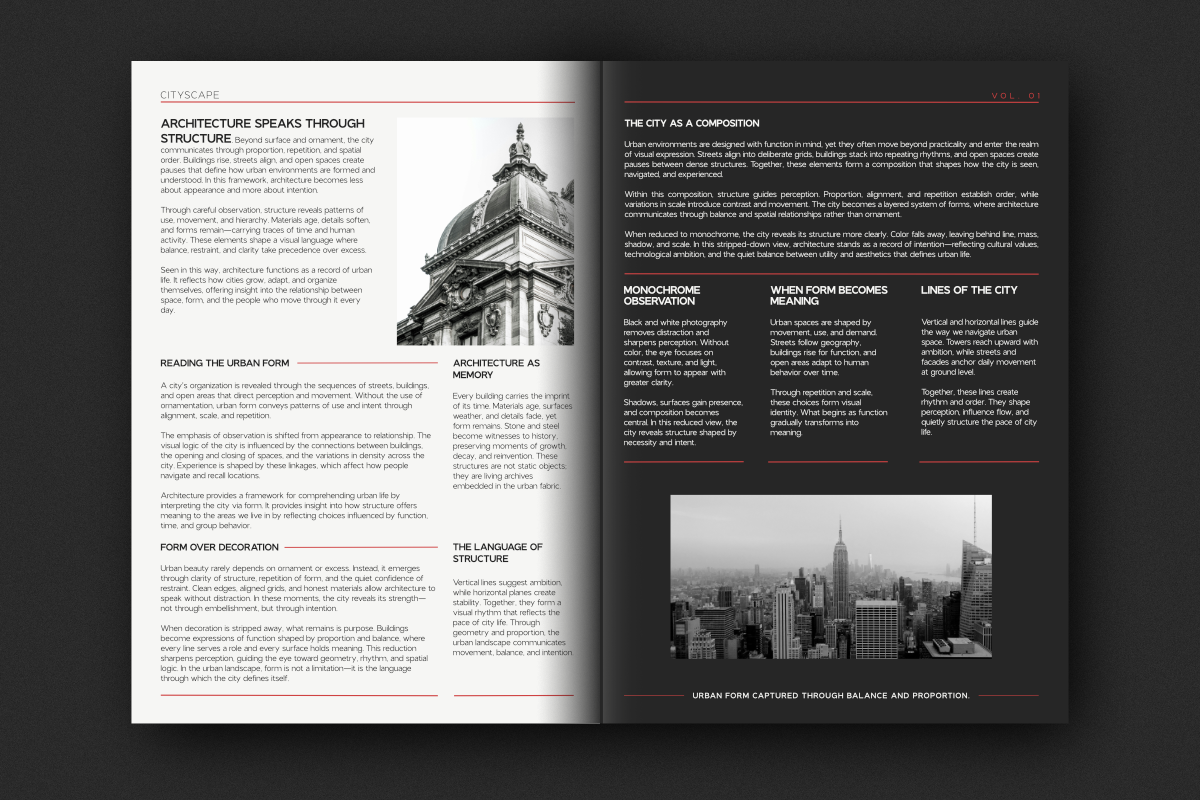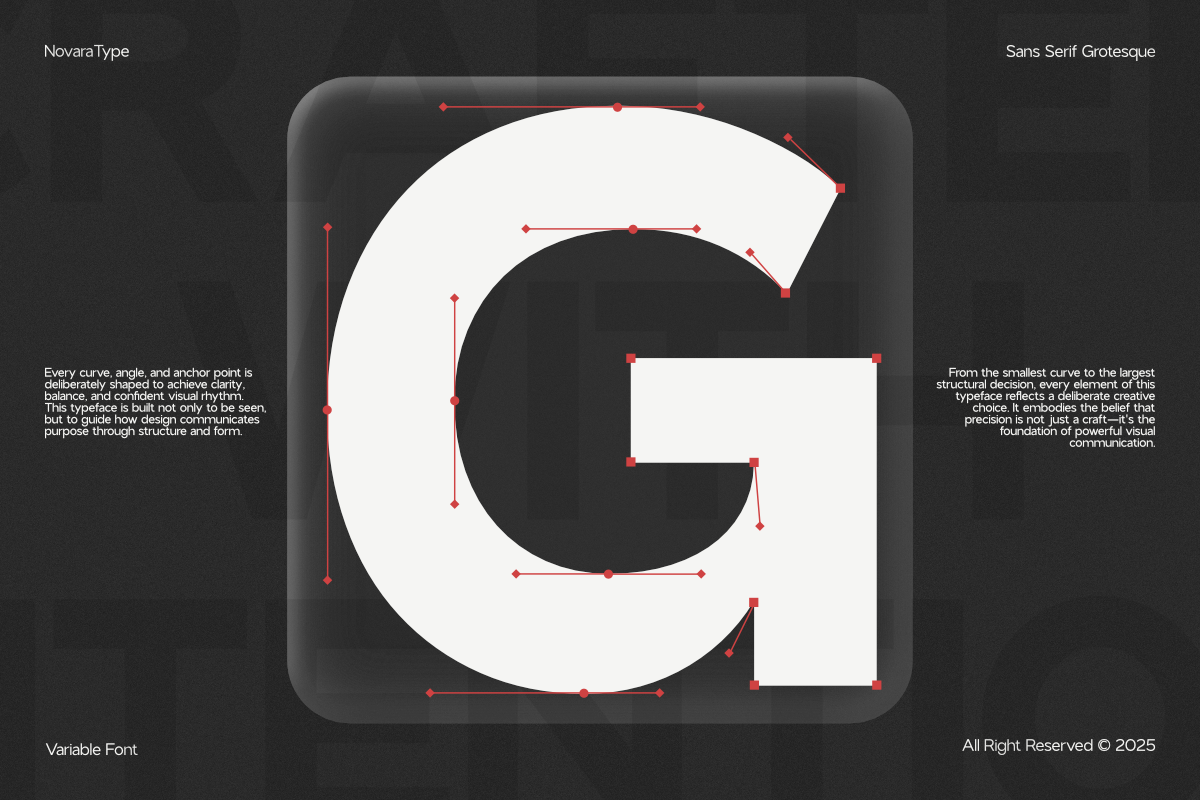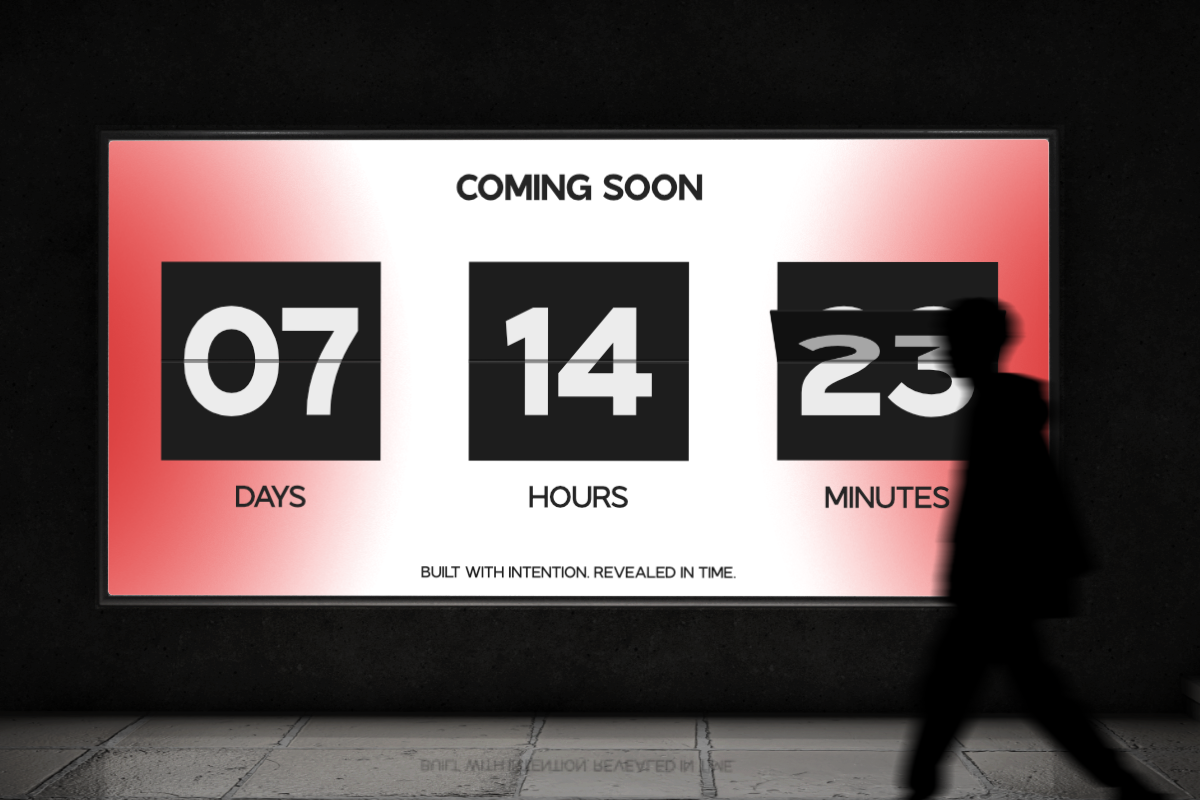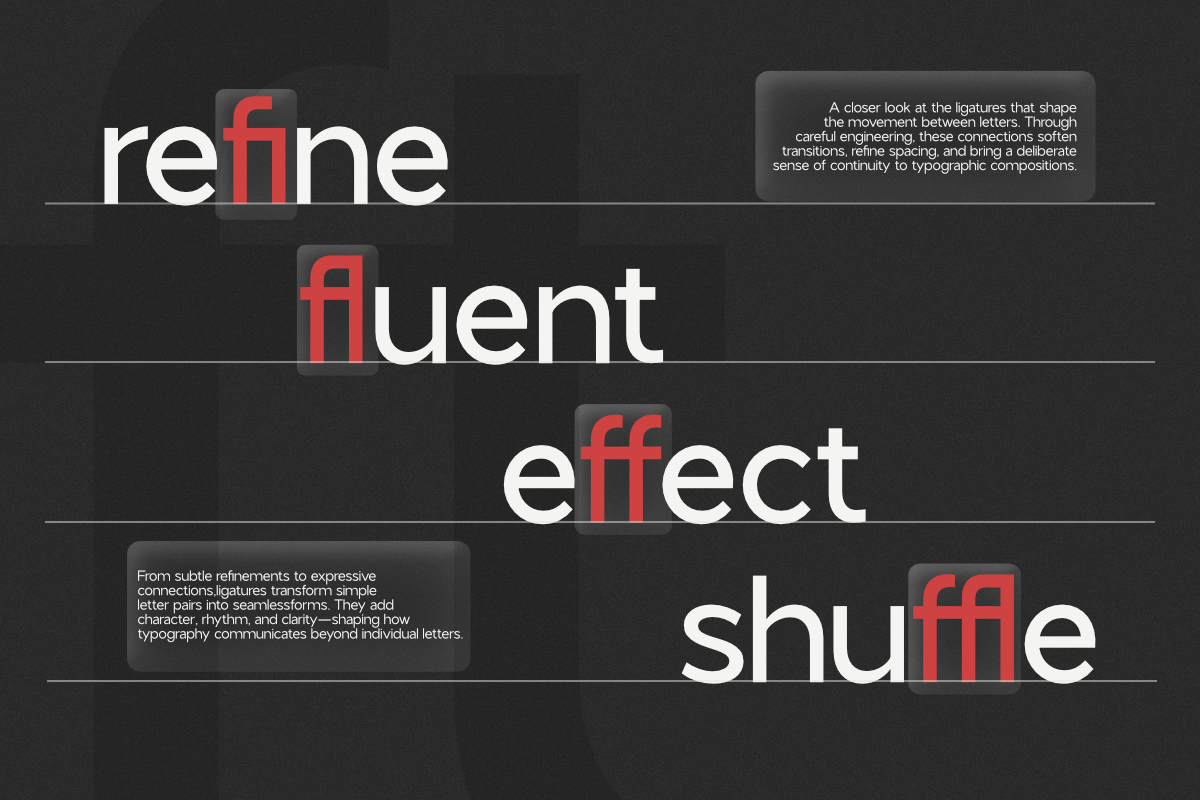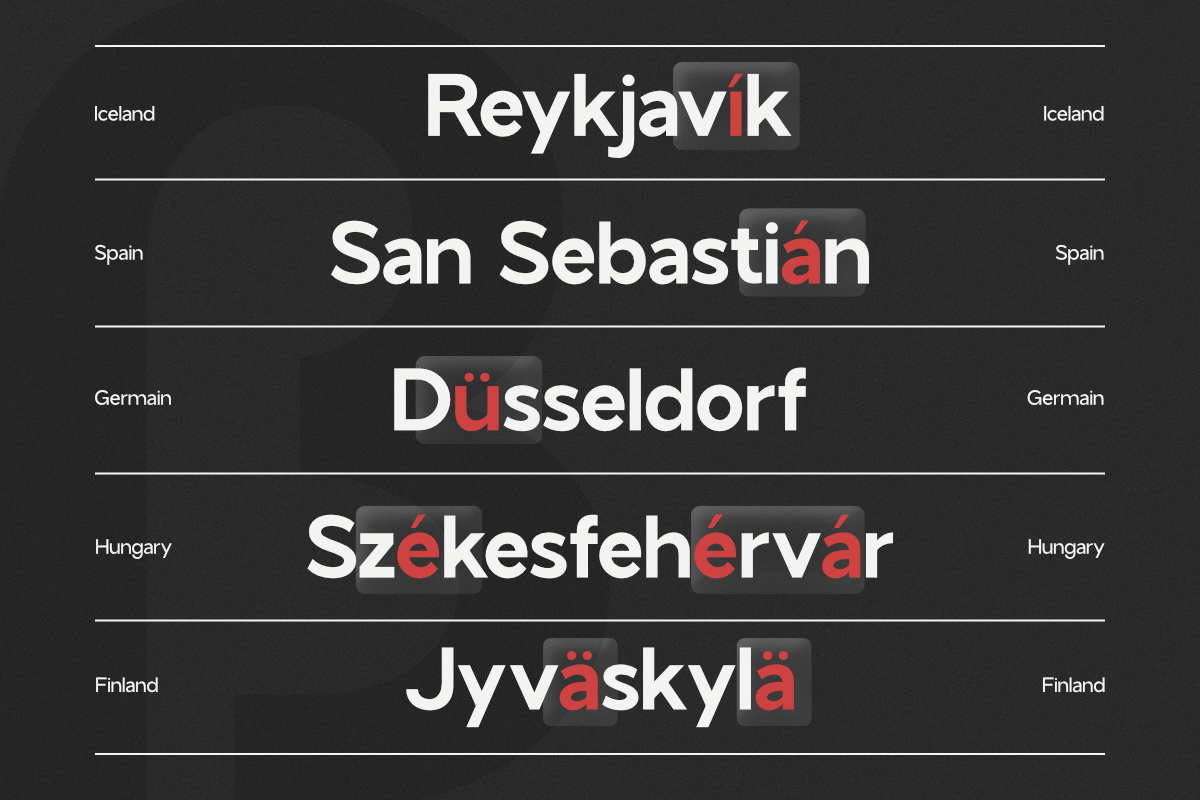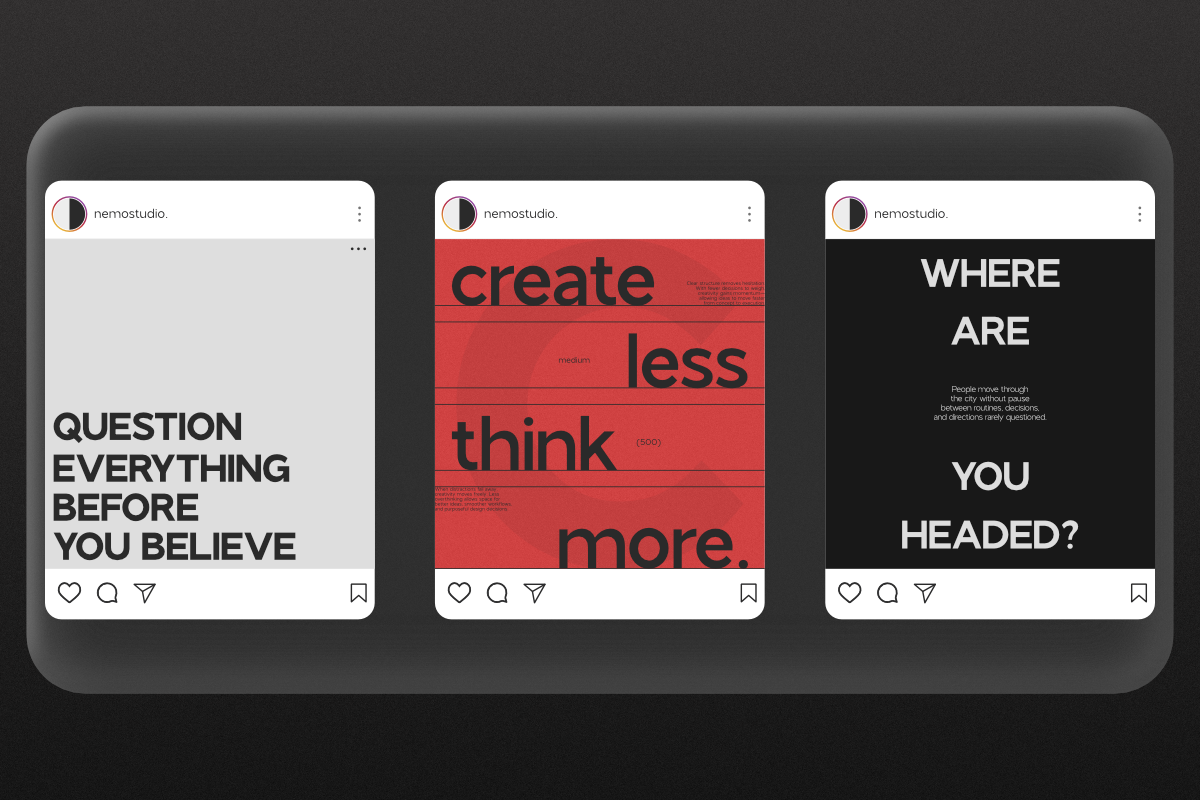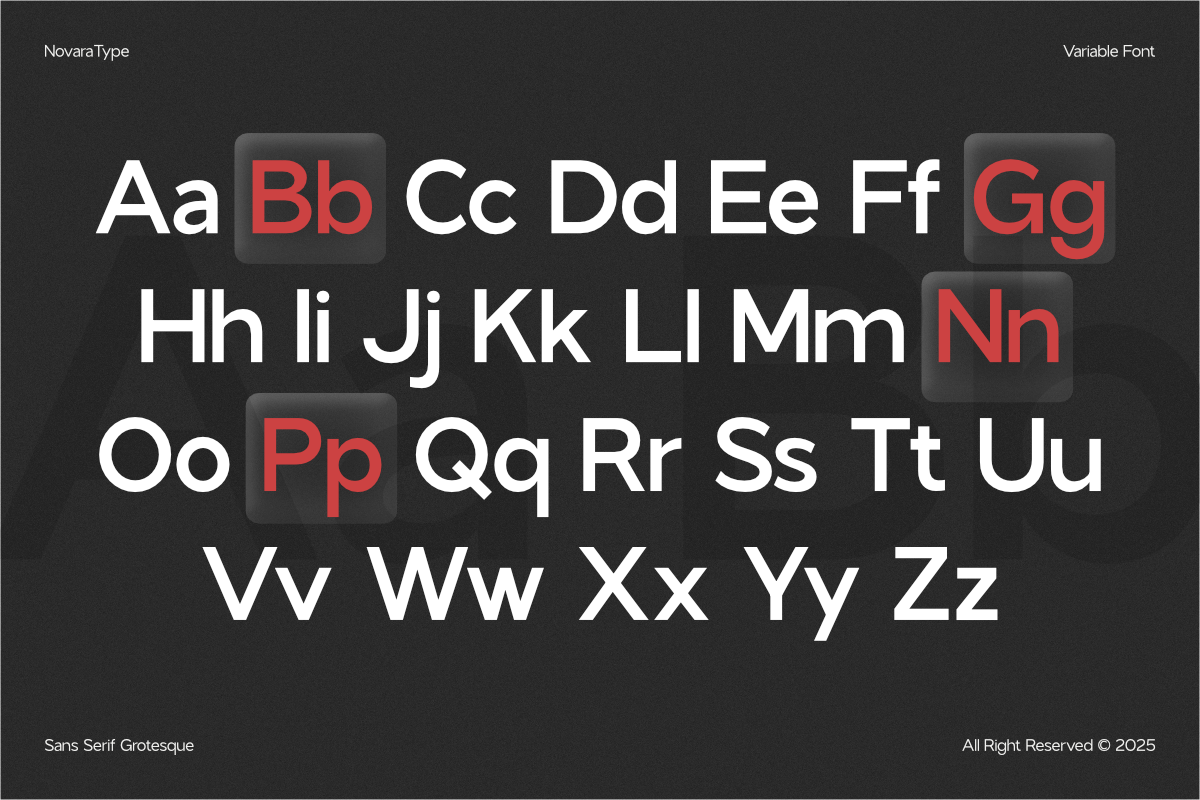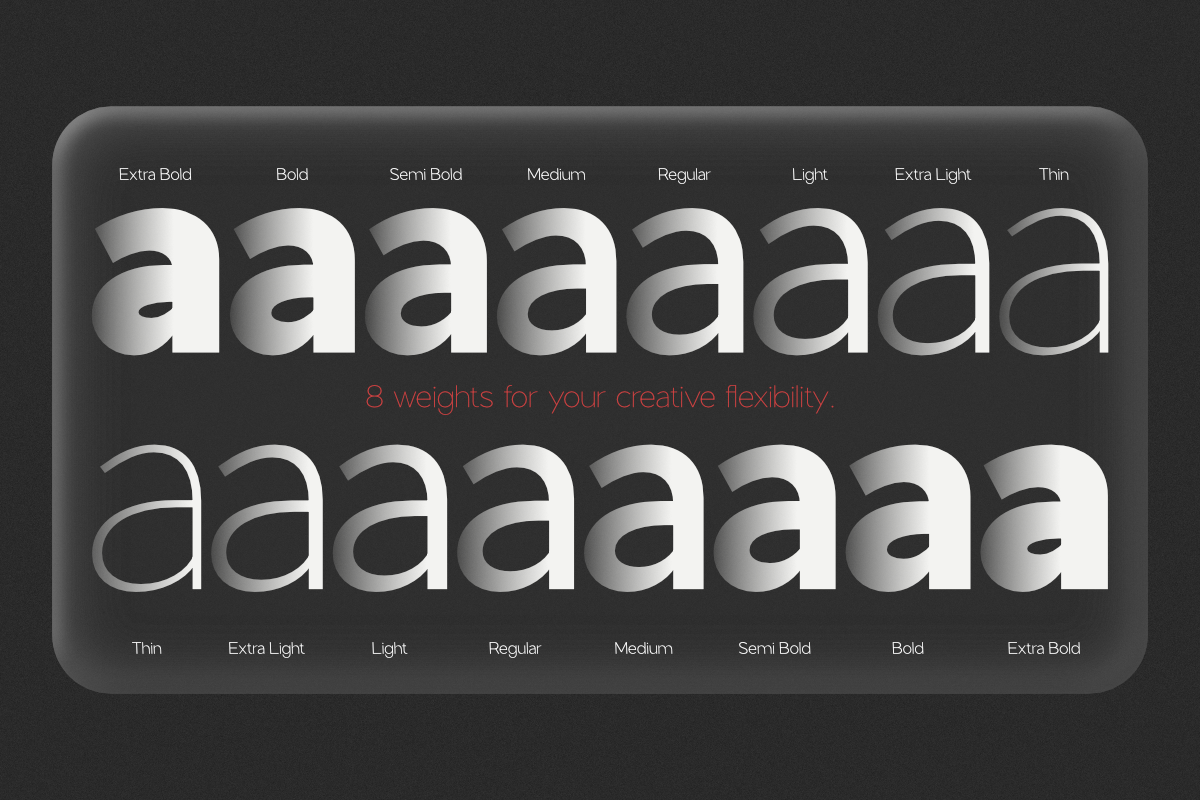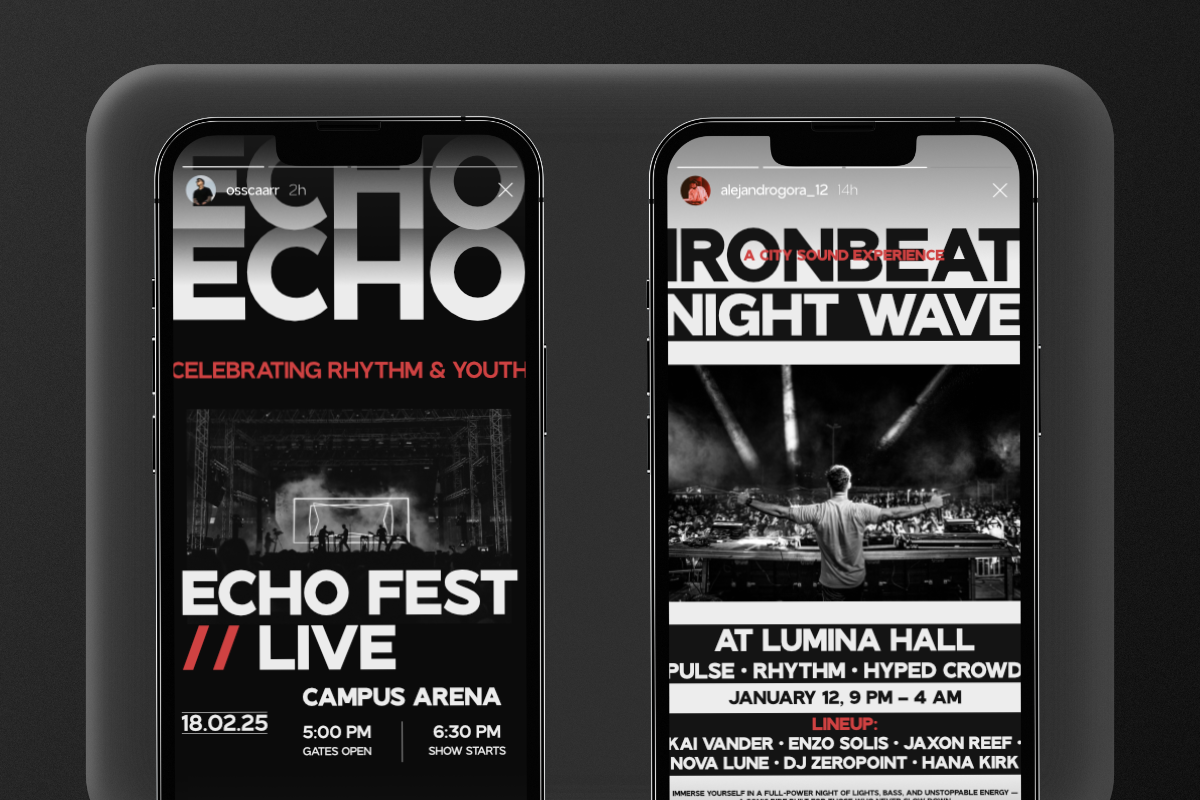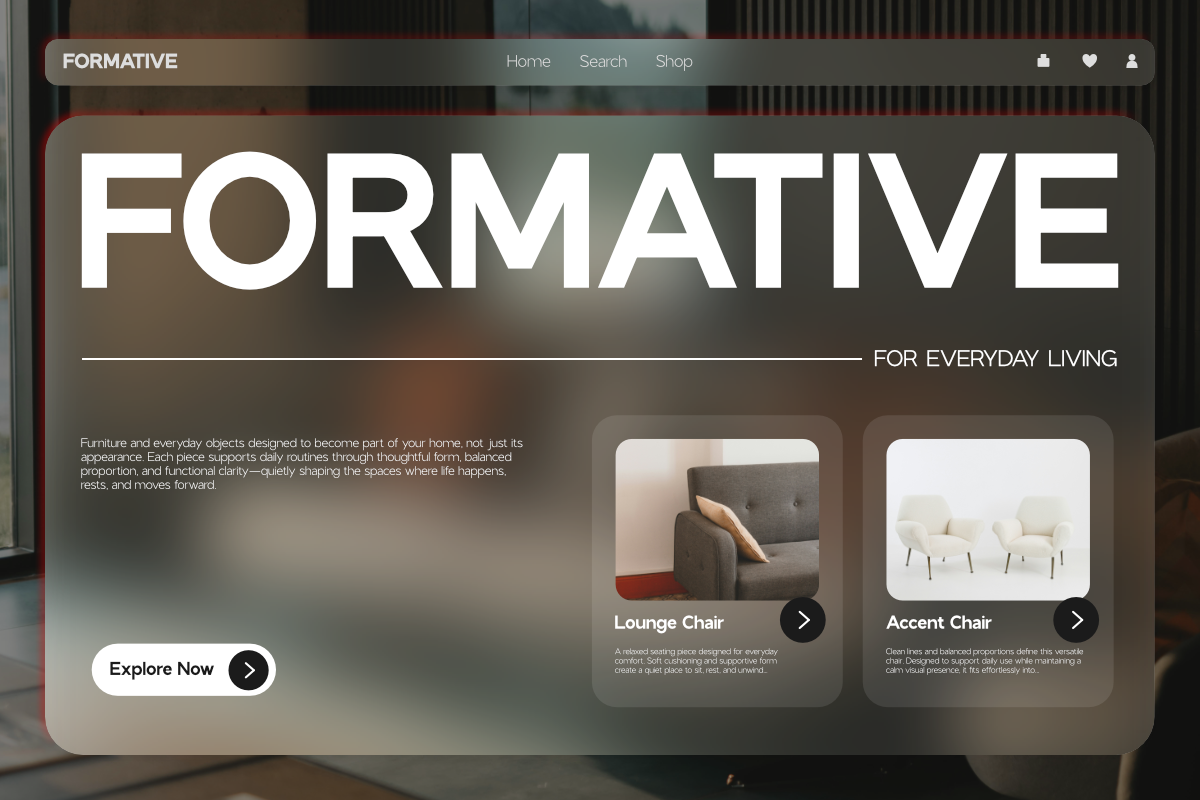
NV Bonza – Modern Sans Serif Family
NV Bonza Sans Serif Family is a clean, modern type system designed to deliver clarity, balance, and versatility across a wide range of creative applications. Developed by NovaraType, NV Bonza combines refined proportions with a contemporary character—making it a reliable choice for branding, editorial design, digital interfaces, and professional layouts.
NV Bonza is crafted to adapt effortlessly across different weights and contexts—from confident headlines to comfortable body text. Its consistent structure and clean detailing help maintain a professional visual tone while remaining flexible for diverse creative needs. Whether you’re building a brand system, designing editorial layouts, or crafting modern UI, NV Bonza delivers clarity with character.
NV Bonza Sans Serif Family Includes:
Multiple Weights
Alternates & Ligatures
Accented Characters